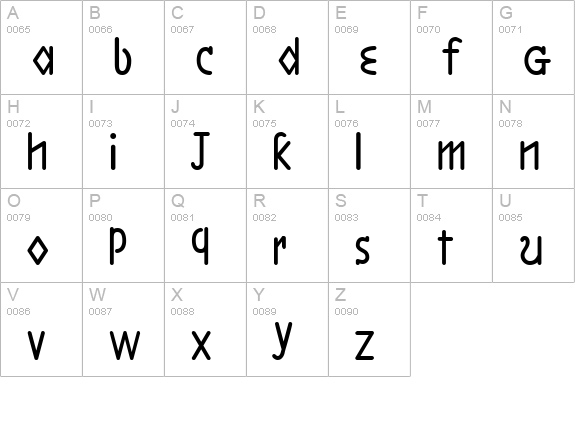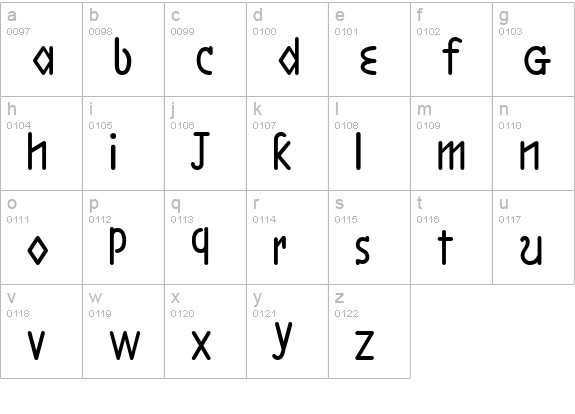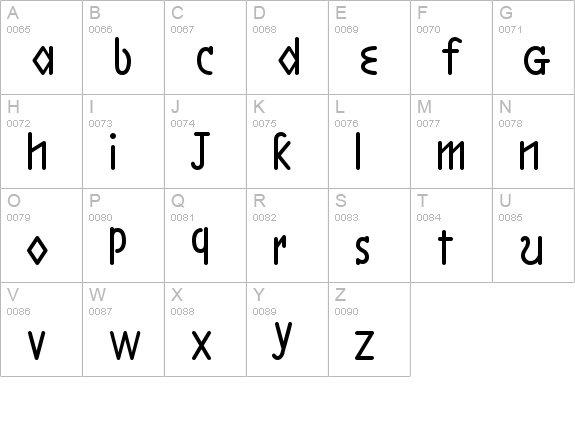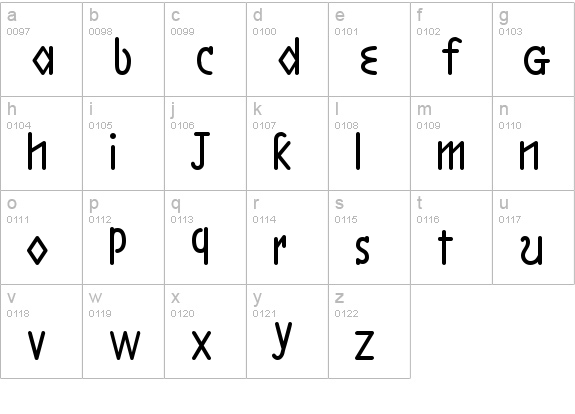
Boston Line font is a modern and stylish typeface that combines sleek lines with a clean and sophisticated design. The font features crisp edges and geometric shapes that give it a contemporary and professional look. Perfect for a wide range of design projects, from branding to editorial design, Boston Line font adds a touch of elegance and sophistication to any project. Best of all, Boston Line font is completely free to download at FontsMarket.com. Simply visit the website and get instant access to this beautiful font for all your design needs. Don't miss out on this fantastic opportunity to enhance your projects with the sleek and modern style of Boston Line font. Download it today and elevate your designs to the next level.